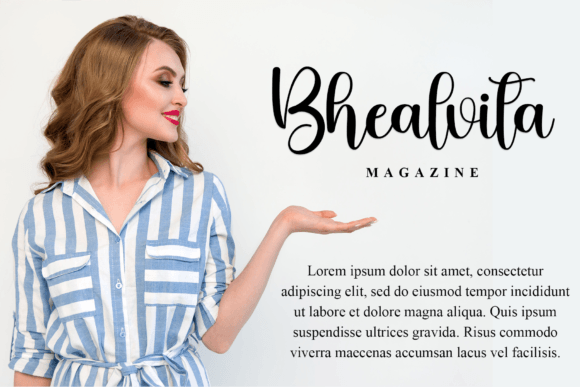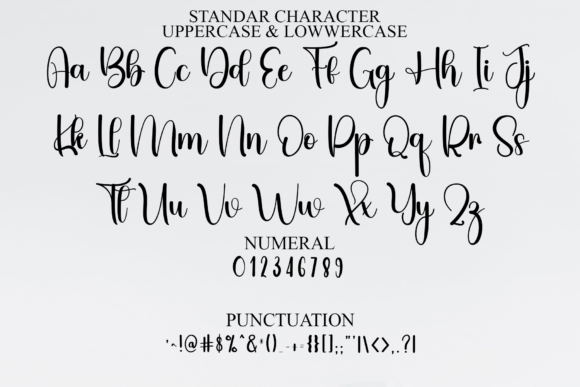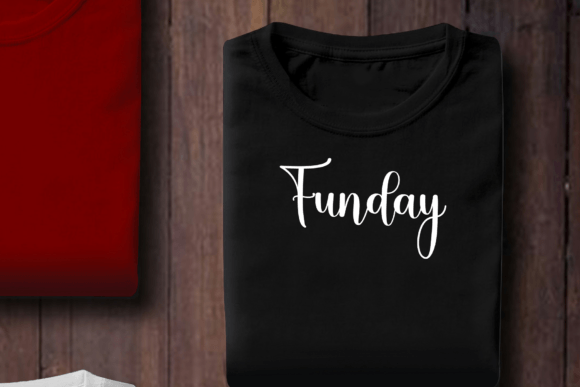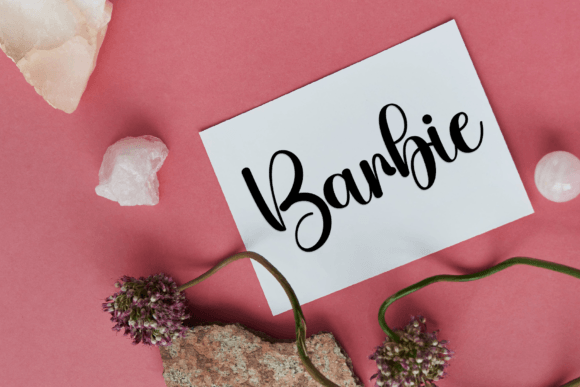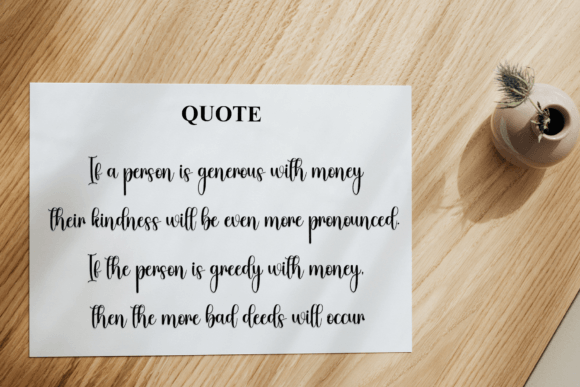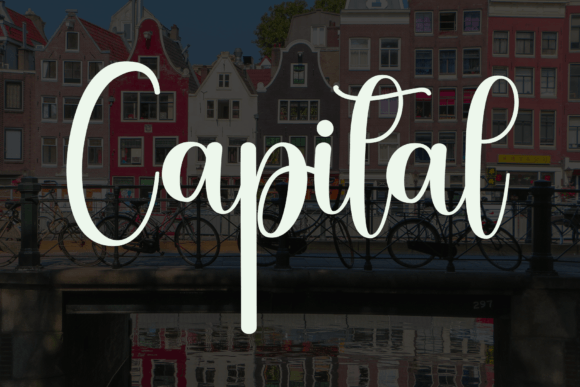
Discover the Elegance of Amsterdam Font: Elevate Your Designs with a Delicate Handwritten Style
Are you on the hunt for a font that adds a touch of sophistication and elegance to your designs? Look no further than the Amsterdam Font. This beautiful, handwritten font is perfect for designers and crafters looking to infuse their projects with a delicate, flowing style. In this article, we’ll dive into the world of Amsterdam Font, exploring its features, benefits, and uses, and show you how it can bring your most creative ideas to life.
What is Amsterdam Font?
Amsterdam Font is a stunning, handwritten typeface that boasts a delicate, elegant, and flowing design. Its well-balanced characters make it an incredibly versatile font, suitable for a wide range of design projects. Whether you’re working on a logo, branding materials, invitations, or any other creative endeavor, Amsterdam Font is sure to make a lasting impression.
Key Features of Amsterdam Font
- Delicate and Elegant Design: Amsterdam Font features a beautiful, handwritten design that’s perfect for adding a touch of sophistication to your projects.
- Well-Balanced Characters: The font’s characters are carefully crafted to ensure a harmonious balance, making it easy to read and visually appealing.
- PUA Coded: Amsterdam Font is PUA (Private Use Area) coded, which means you can easily access all the amazing glyphs and ligatures, giving you even more creative freedom.
- Wide Range of Uses: From logos and branding materials to invitations and more, Amsterdam Font is versatile enough to match a wide pool of designs.
Benefits of Using Amsterdam Font
- Adds a Touch of Elegance: With Amsterdam Font, you can add a touch of sophistication and elegance to your designs, setting them apart from the rest.
- Enhances Readability: The font’s well-balanced characters and flowing design make it easy to read, ensuring your message gets across clearly.
- Increases Creative Freedom: With PUA coding, you have access to a wide range of glyphs and ligatures, giving you the creative freedom to experiment and try new things.
- Versatile and Adaptable: Amsterdam Font is suitable for a wide range of design projects, making it a valuable addition to your font library.
Using Amsterdam Font in Your Designs
- Logos and Branding Materials: Use Amsterdam Font to create stunning logos and branding materials that exude elegance and sophistication.
- Invitations and Stationery: Add a touch of whimsy and romance to your invitations and stationery with this beautiful handwritten font.
- Digital and Print Media: Use Amsterdam Font in your digital and print media, such as brochures, flyers, and social media graphics, to add a touch of elegance and refinement.
In conclusion, Amsterdam Font is a beautiful, elegant, and flowing handwritten font that’s perfect for designers and crafters looking to add a touch of sophistication to their designs. With its well-balanced characters, PUA coding, and wide range of uses, this font is sure to become a valuable addition to your font library. So why wait? Discover the elegance of Amsterdam Font and elevate your designs to new heights!